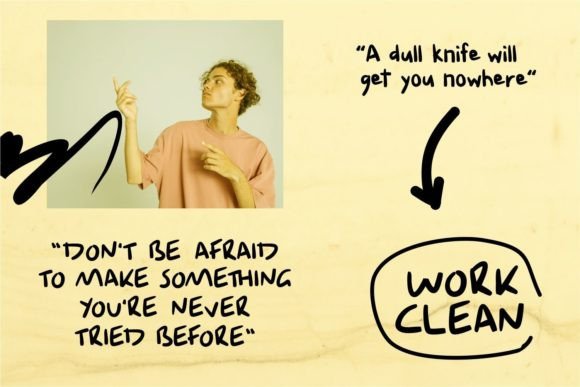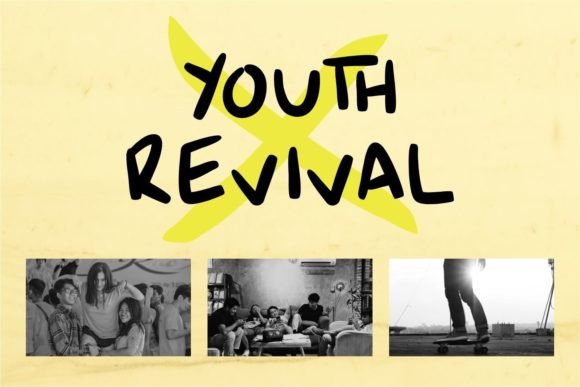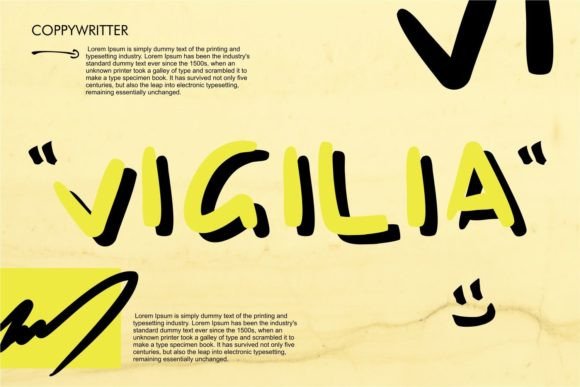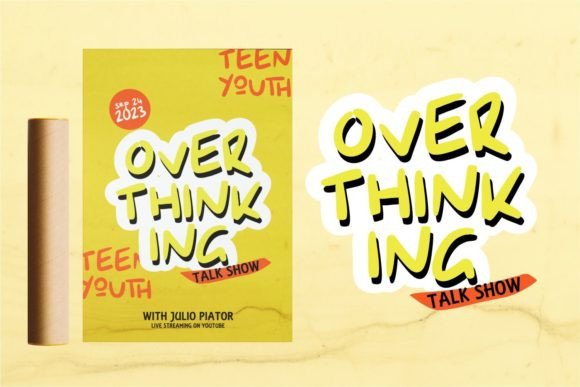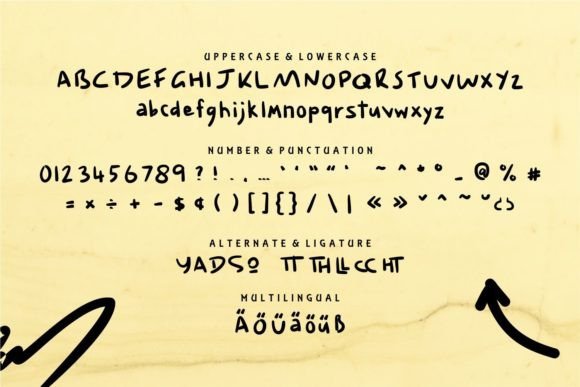
Make a Statement with Damas Font
Remember that moment when you’re brainstorming ideas for a new project and you just know you need something bold and eye-catching to grab people’s attention? That’s exactly where Damas Font comes in – a distinctive and retro display font that commands attention and makes a statement.
| 👤 Author | Vunira |
With its bold and chunky letterforms, Damas Font is perfect for headlines, posters, and any project that requires a strong and memorable display. As a designer, you know how important it is to stand out from the crowd and leave a lasting impression. That’s where Damas Font shines, offering a unique and eye-catching font that’s sure to get you noticed.
Thanks to its PUA encoding, accessing all the delightful glyphs and swashes of Damas Font is effortless, allowing you to unleash your creativity and take your designs to the next level.
Damas Font Key Features
- Unique Characteristics: Damas Font features a unique blend of traditional and modern design elements, making it an ideal choice for projects that require a touch of elegance and sophistication.
Damas Font Review
I recently had the chance to work with the Damas font, and I must say, it’s a mixed bag. There are some things that I really like, but there are also some limitations that might make it not the best choice for every project.
- The Damas font has a beautiful, elegant feel to it. The curves are smooth, and the lines are clean and precise.
- It’s a highly legible font, even at smaller sizes. I was impressed by how well it performed in body text.
- The font has a unique, hand-drawn feel that sets it apart from more common sans-serif fonts.
- The font is quite limited in terms of character set. It’s missing some common symbols and glyphs, which might be a problem for certain projects.
- The font is only available in a few weights, which can make it difficult to achieve the right level of contrast and hierarchy in your design.
Overall, I think the Damas font is a solid choice for projects where you need a elegant, high-end feel. However, it’s not the most versatile font out there, and it might not be the best choice for projects that require a lot of customization or flexibility.
Getting the Most Out of Damas Font
Here are some tips to get the most out of Damas Font:
- Use Damas Font for titles and headings to add a touch of elegance.
- Pair Damas Font with other elegant fonts for a sophisticated look.
- Experiment with different font sizes and styles to add visual interest.
Damas Font is ideal for:
- Business cards and marketing materials.
- Formal event invitations and announcements.
Playfair Display is similar to Damas Font in its luxurious and elegant feel, but it has a more refined and sophisticated appearance. While Damas Font has a more dramatic and ornate style, Playfair Display is more understated and elegant.
Great Vibes is similar to Damas Font in its elegant and refined feel, but it has a more modern and dynamic appearance. While Damas Font has a more traditional and ornate style, Great Vibes is more contemporary and playful.